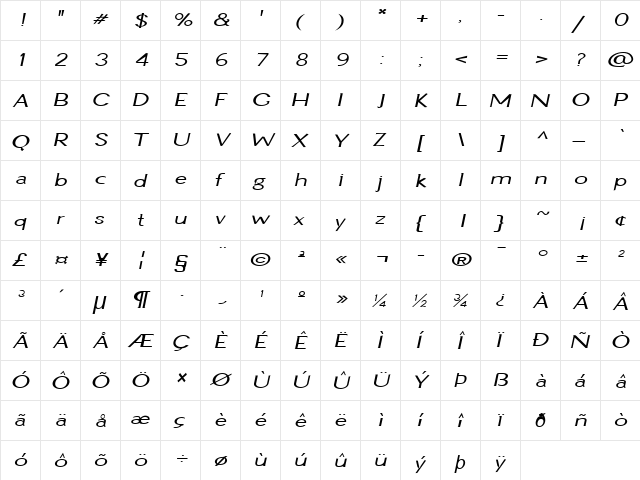
Ginger Italic
Design Context for Ginger Typeface
Ginger takes a measured approach to typography — its balanced proportions and neutral character make it a reliable workhorse for both digital and print work. The dynamic lean of this cut emphasises speed and emphasis in any layout.
Pro Tip: Try Ginger for annotation and caption copy alongside an upright companion — the contrast in angle creates a dynamic but ordered typographic system.